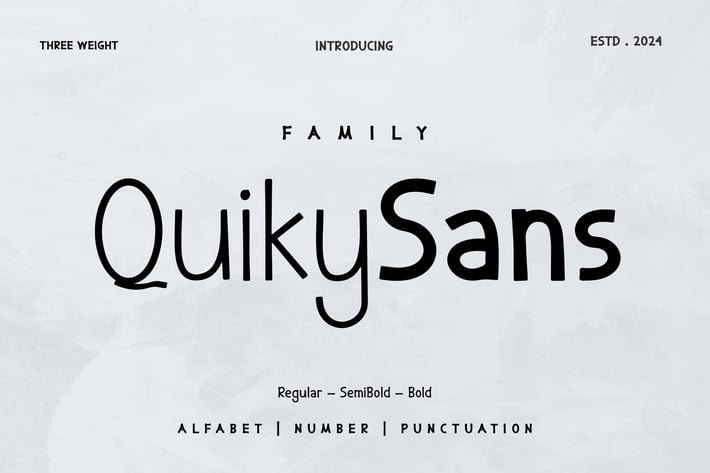
Quiky Sans Font Family
Quiky Sans - Textured Brush Font a unique display typeface perfect for titles, large text, branding, logotypes & graphic design purposes such as posters, pamphlets, and advertisements. This letter font can be a great choice for creating amazing logos, promotional content, and marketing presentations that can bring uniqueness and freshness at its best.
Uppercase and Lowercase letters
Numbering and Punctuations